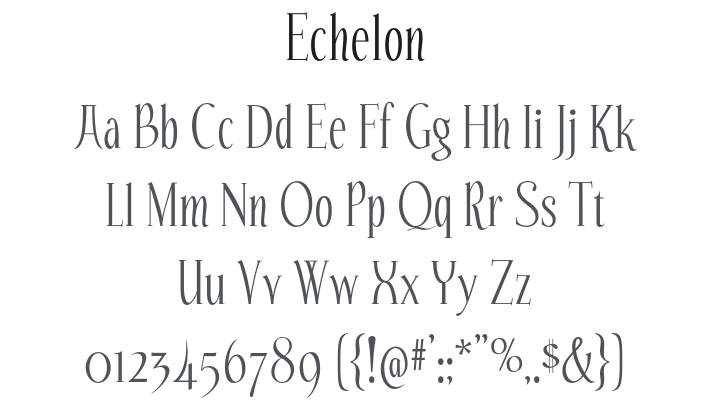
Echelon Font Family
About Echelon
Echelon is a compact, elegant serif titling typeface with delicate strokes and distinctive proportions that lend a quiet, refined personality to any headline. Remarkably, it was designed entirely on a Palm handheld during a Toronto–Seattle flight in 1999. Available in Regular and Italic, it suits editorial titles, book covers, logos, magazine headlines, and any design needing understated sophistication.